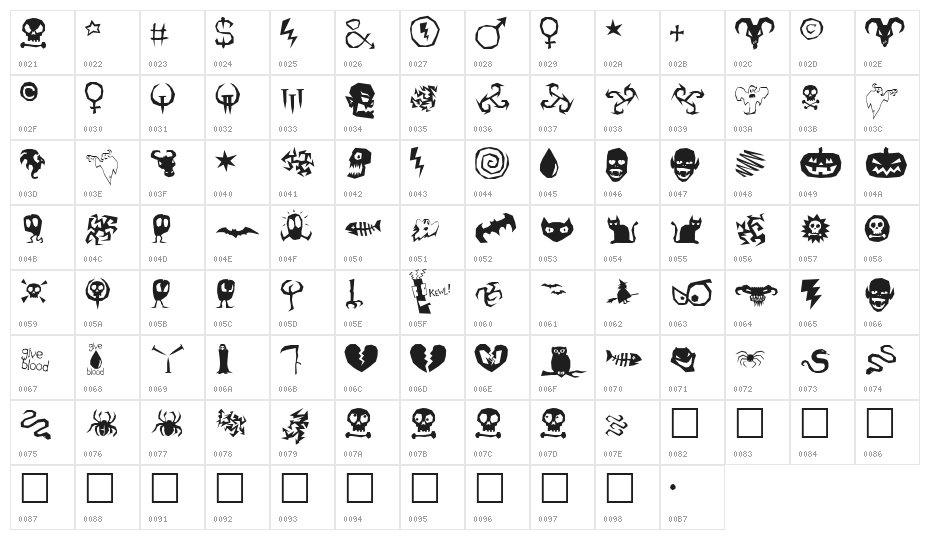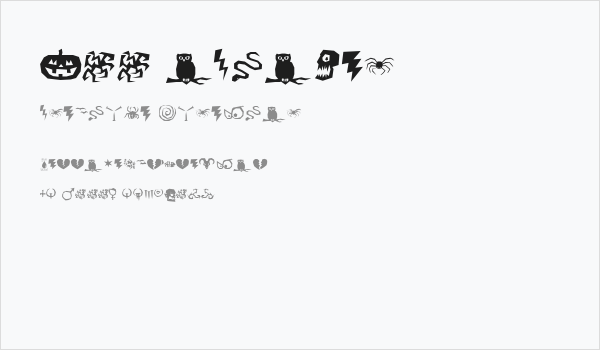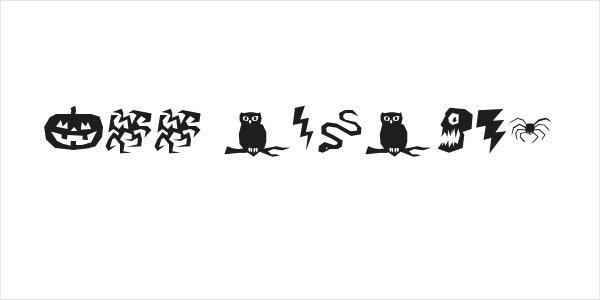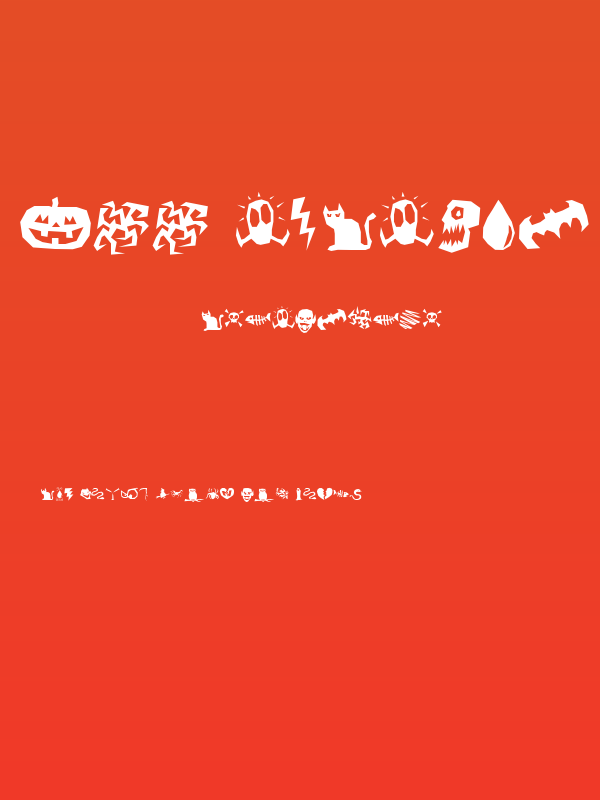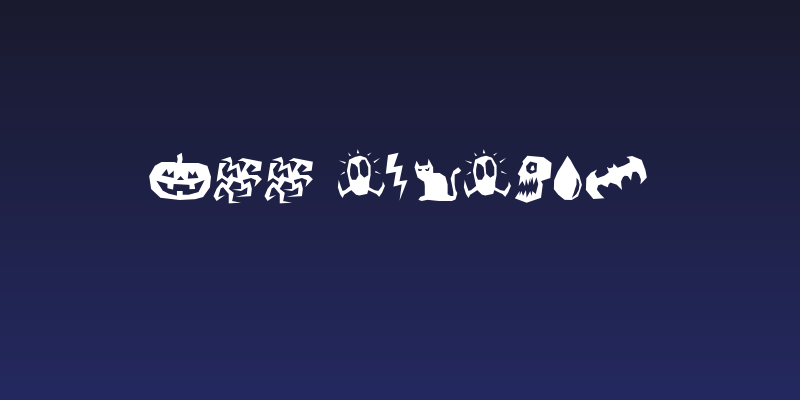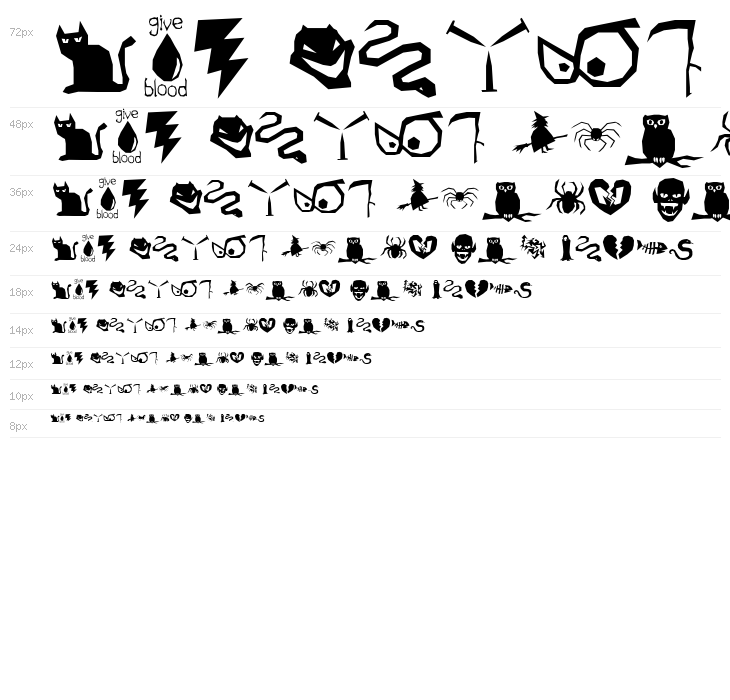
ILL oCtoBer Font
ILL oCtoBer Description
A decorative display font featuring bold, irregular, and jagged Halloween-themed glyphs including skulls, pumpkins, bats, cats, snakes, spiders, and various spooky symbols. The characters are highly stylized with sharp edges and uneven forms, evoking a playful yet eerie atmosphere.
| Overall Style | Decorative, Playful, Spooky |
| Use Case | Headlines, Posters, Themed Graphics |
| Proposed Projects | Halloween party invitations, themed posters, event flyers, childrenΓ’β¬β’s crafts, seasonal branding, decorative headlines. |